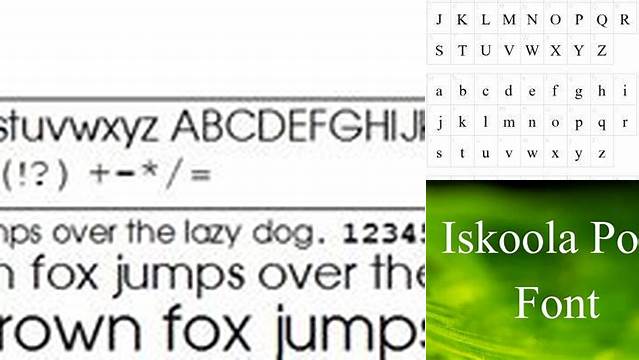
Hey guys! Looking to jazz up your projects with a cool, readable font? You've probably heard of Scola Potha, a fantastic typeface known for its clarity and elegance. This article is your ultimate guide to Scola Potha font free download, its various applications, and everything else you need to know. We’ll dive deep into the specifics, exploring its unique characteristics and how you can make the most of it. So, let's get started and explore the world of Scola Potha!
1. What is Scola Potha Font?
So, what exactly is Scola Potha font? Well, it's a versatile typeface designed with readability in mind. Think clear, clean lines that make it a perfect choice for both body text and headlines. Imagine reading a book or browsing a website where the text just flows effortlessly – that’s often thanks to fonts like Scola Potha. This font family was crafted to ensure that the characters are easily distinguishable, even at smaller sizes. This is particularly important in today's digital age, where so much of our reading happens on screens. The beauty of Scola Potha lies in its simplicity; it doesn’t shout for attention, but it quietly enhances the reading experience. The design is modern yet timeless, making it suitable for a wide range of projects. From academic papers to marketing materials, Scola Potha brings a level of professionalism and clarity that is hard to beat. Its balanced letterforms and consistent spacing make it a joy to read, reducing eye strain and improving comprehension. So, if you're aiming for a polished and reader-friendly design, Scola Potha is definitely a font to consider. We will explore further how you can get your hands on this font for free and integrate it into your projects seamlessly. Stay tuned as we delve deeper into the nuances of Scola Potha font and its applications in various design scenarios.
2. The History and Design of Scola Potha
The story behind Scola Potha is quite interesting, guys. It wasn't just whipped up overnight; it's the result of careful consideration and design expertise. Understanding the history can give you a greater appreciation for the font's unique qualities. The design philosophy behind Scola Potha emphasizes clarity and legibility. The font was created to be highly readable in a variety of contexts, from print to digital media. This focus on readability is evident in the font's clean lines, generous spacing, and well-defined letterforms. The designers paid close attention to the details, ensuring that each character is distinct and easily recognizable. This meticulous approach makes Scola Potha a standout choice for projects where clear communication is paramount. The font's design also reflects a modern aesthetic, blending contemporary sensibilities with timeless appeal. It’s a font that feels both current and classic, making it adaptable to a wide range of design styles. Whether you're working on a sleek, minimalist website or a traditional print brochure, Scola Potha can seamlessly integrate into your visual landscape. The history of Scola Potha underscores its commitment to quality and functionality. It's a font designed not just to look good, but to perform exceptionally well in real-world applications. Understanding this background helps you appreciate the thought and effort that went into creating this versatile typeface. Next, we'll explore where you can find this amazing font for free download and start using it in your own projects.
3. Key Features and Characteristics of Scola Potha
Let's talk about what makes Scola Potha stand out, shall we? The key features and characteristics of this font are what make it so versatile and beloved by designers. One of the most notable features of Scola Potha is its exceptional readability. The font's clean lines and generous spacing make it easy on the eyes, even when used in long blocks of text. This makes Scola Potha an ideal choice for books, articles, and websites where readability is a top priority. The letterforms are carefully crafted to ensure each character is distinct and easily recognizable, minimizing the chances of confusion. Another key characteristic is its modern yet timeless design. Scola Potha strikes a perfect balance between contemporary aesthetics and classic typography. This allows it to seamlessly fit into a variety of design contexts, from sleek digital interfaces to traditional print layouts. The font’s versatility is further enhanced by its range of weights and styles. Scola Potha typically includes regular, bold, italic, and bold italic variations, providing designers with a flexible toolkit for creating visual hierarchy and emphasis. Whether you need a strong, commanding headline or a subtle, elegant body text, Scola Potha has you covered. The consistent design across different weights and styles ensures a cohesive and professional look throughout your project. In addition to its aesthetic qualities, Scola Potha is also designed for optimal performance in both print and digital environments. The font renders beautifully on screens of all sizes, ensuring that your text looks crisp and clear, whether it’s displayed on a desktop monitor or a mobile device. We will explore further how these features contribute to making Scola Potha a top choice for designers seeking a reliable and visually appealing typeface. And of course, we’ll get to the all-important question: where can you get a free download?